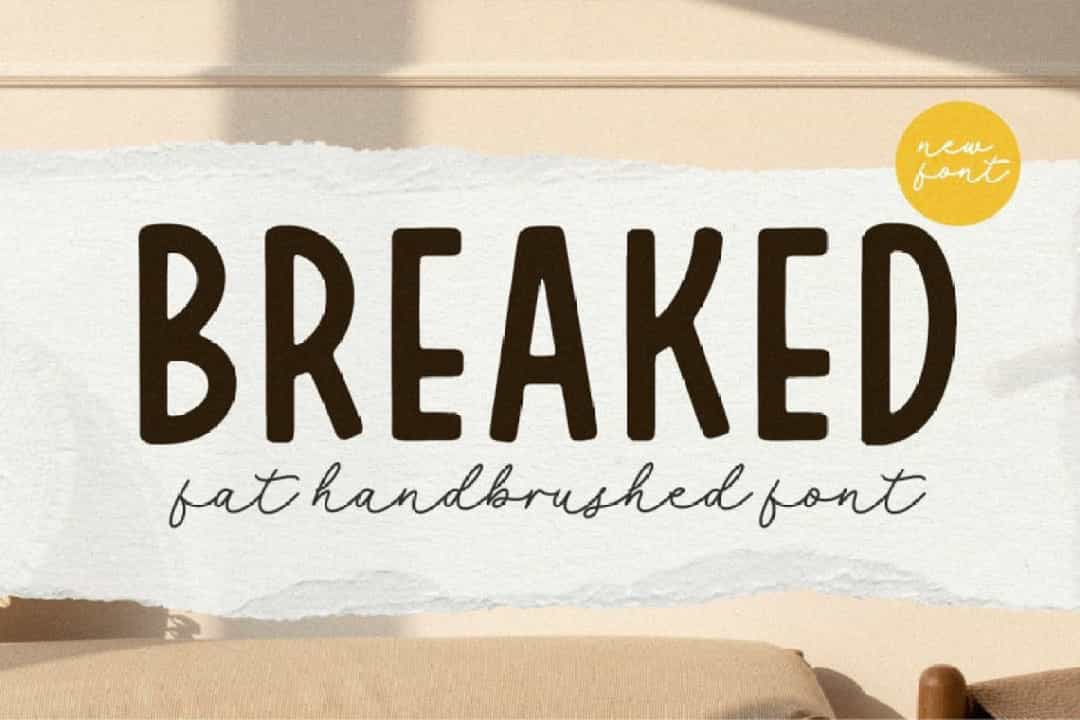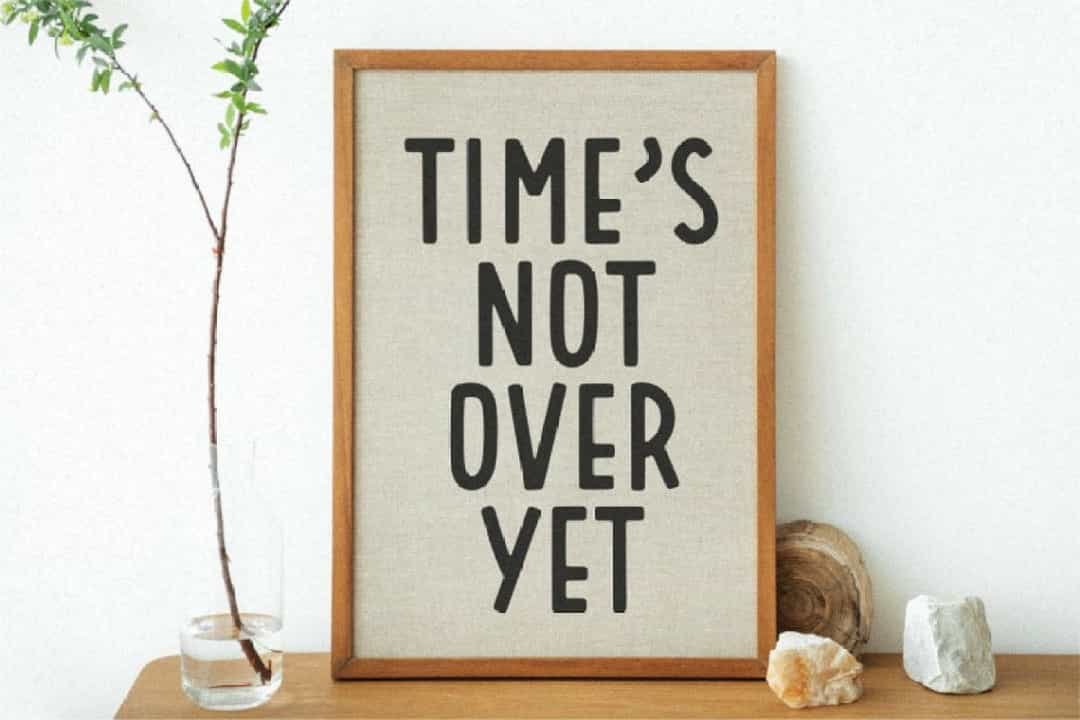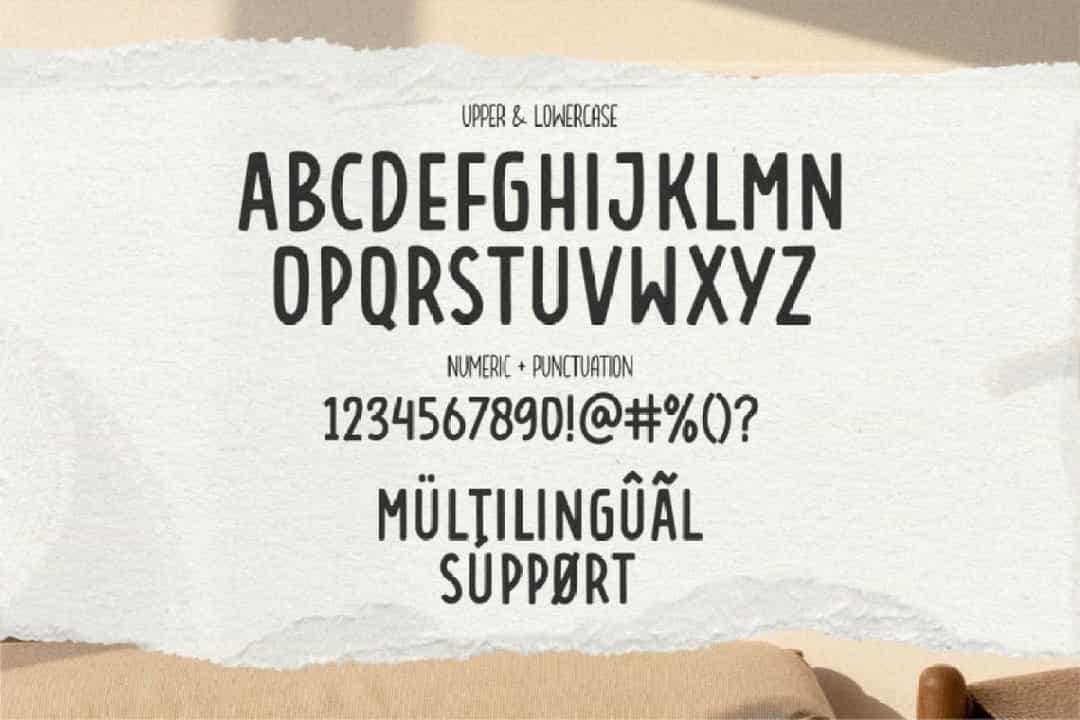
Discover Breaked Font, part of the Sans Serif Brush Display collection—a versatile and unique font perfect for adding a personal touch to your projects. Download it for free and enjoy crafting designs with style, from invitations to social media posts. This font is available exclusively for personal use, giving you the freedom to create without limits. Unlock your creativity with Breaked Font today!
Broken is a stylish hand-brushed Sans Serif Typeface perfect for creating logos, greeting cards packaging posters and more! Its warm and captivating style will leave a lasting impression upon those viewing your project.